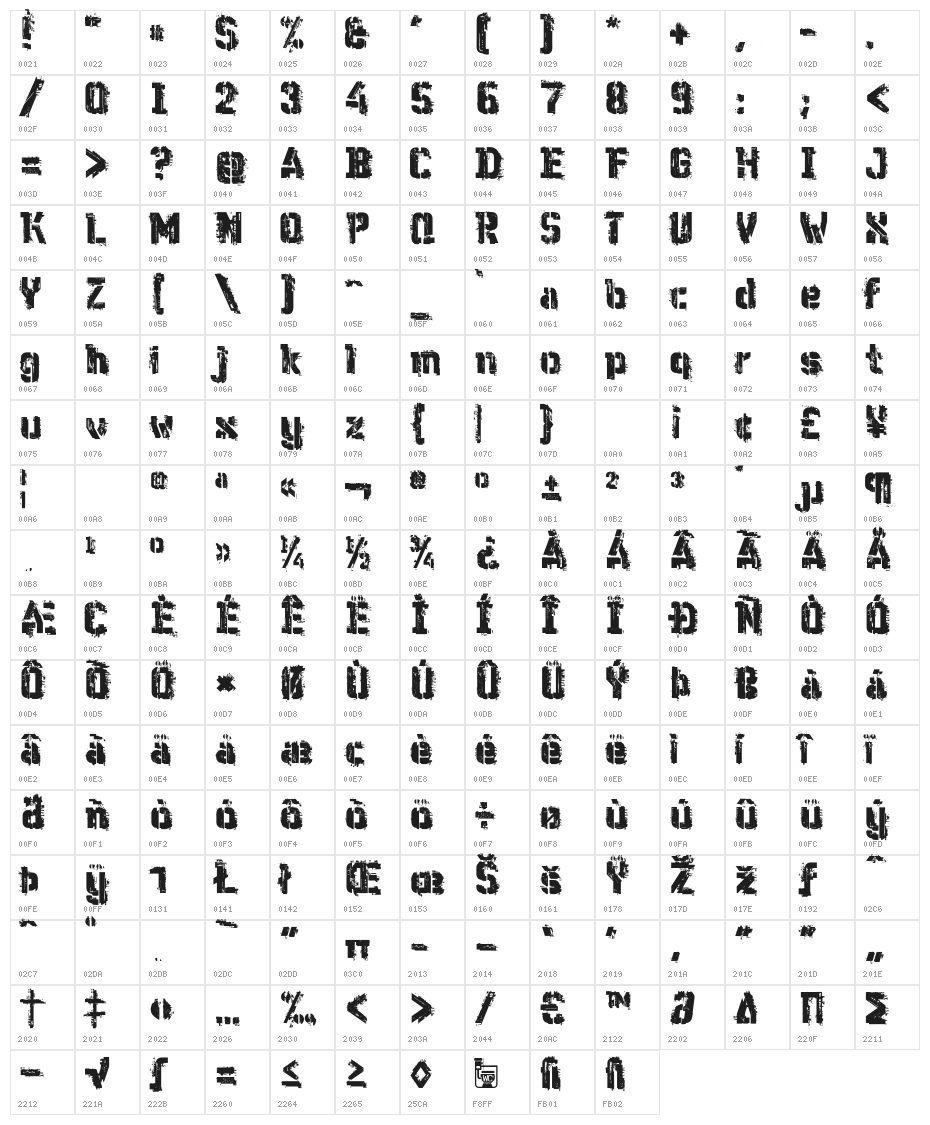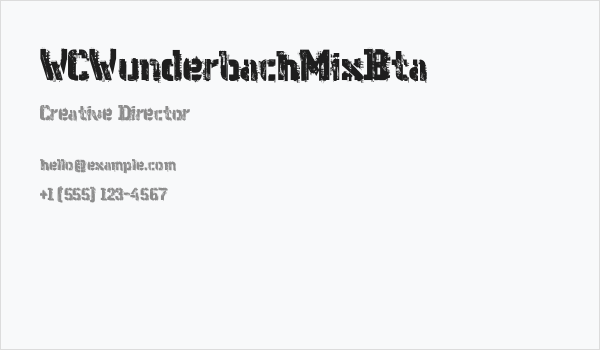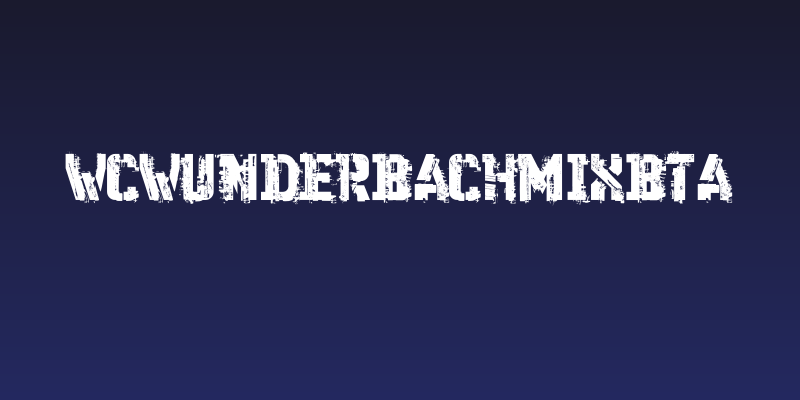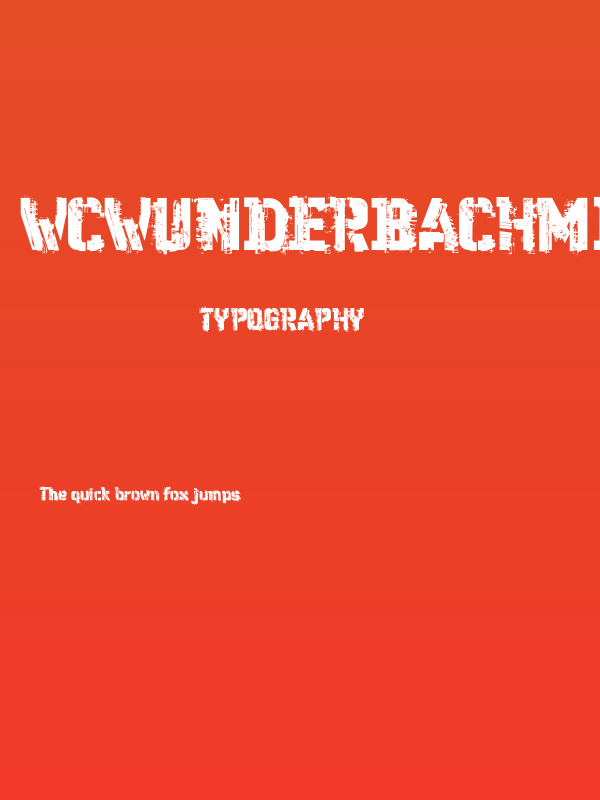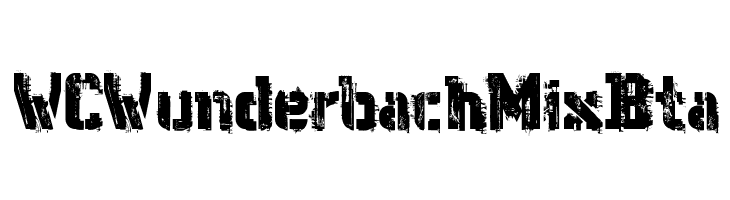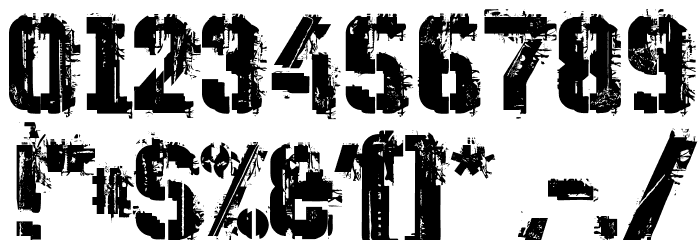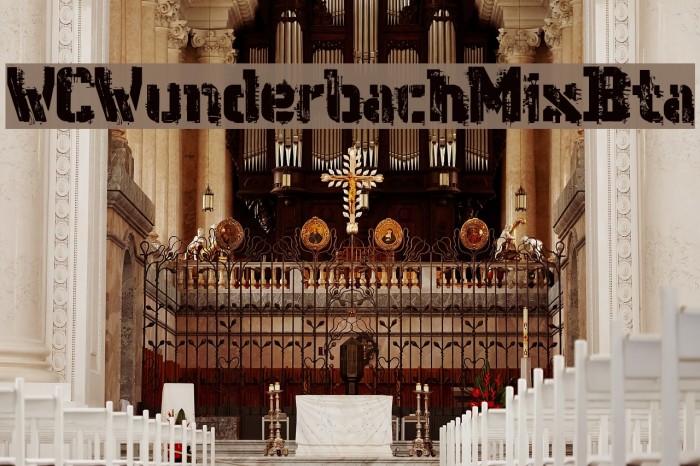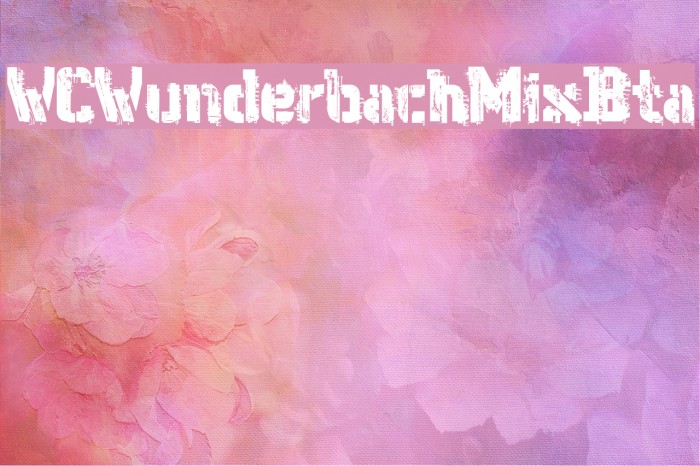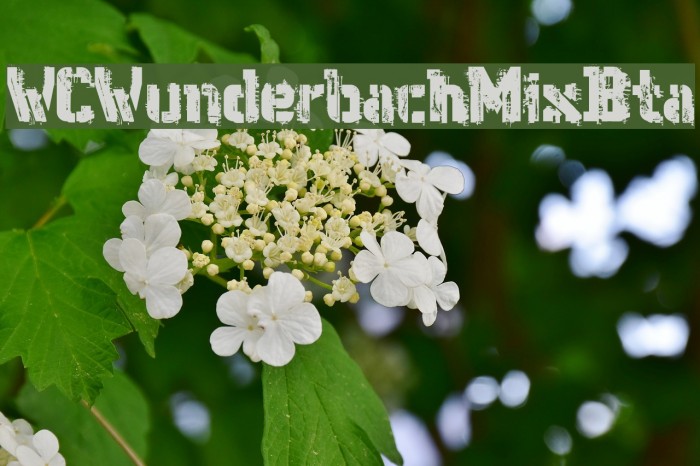
WCWunderbachMixBta Font
WCWunderbachMixBta Description
This font features a bold and distressed style, characterized by its rough, textured appearance that mimics a worn or grunge effect. The uppercase and lowercase letters, along with numbers and special characters, exhibit a consistent ruggedness, making it ideal for designs that require a raw, edgy look. The font's unique aesthetic is achieved through irregular edges and a slightly chaotic form, which adds a sense of movement and energy. Despite its distressed nature, the characters remain legible, providing a balance between artistic flair and readability.
| Overall Style | Grunge, Edgy, Urban |
| Proposed Projects | Ideal for album covers, posters, urban-themed designs, and branding that requires a gritty, edgy look. |